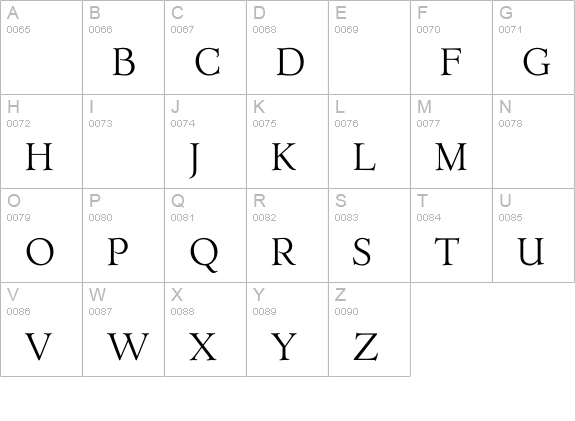
ErasmusLight Font Details
ErasmusLight font is a modern and elegant typeface that exudes sophistication and professionalism. With its clean lines and sleek design, this font is perfect for a wide range of design projects, from branding to editorial layouts. The light weight of the font gives it a delicate and refined appearance, making it ideal for conveying a sense of elegance and subtlety. One of the best things about ErasmusLight font is that it is completely free to download. Yes, that's right - you can access this beautiful font at no cost! Simply visit FontsMarket.com to get your hands on this stylish typeface and elevate your designs with its timeless appeal. Don't miss out on the opportunity to add ErasmusLight font to your font collection and take your projects to the next level.